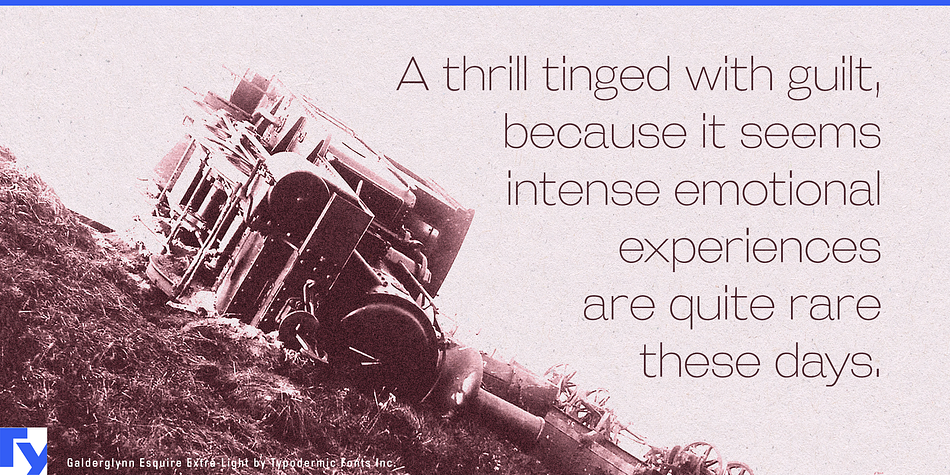
Galderglynn Esquire is a sans serif font family. This typeface has fourteen styles and was published by Typodermic Fonts Inc.
Galderglynn Esquire is a bag of assorted 19th Century metal type. Numerals: regular, monospaced, old-style, inferior & superior.